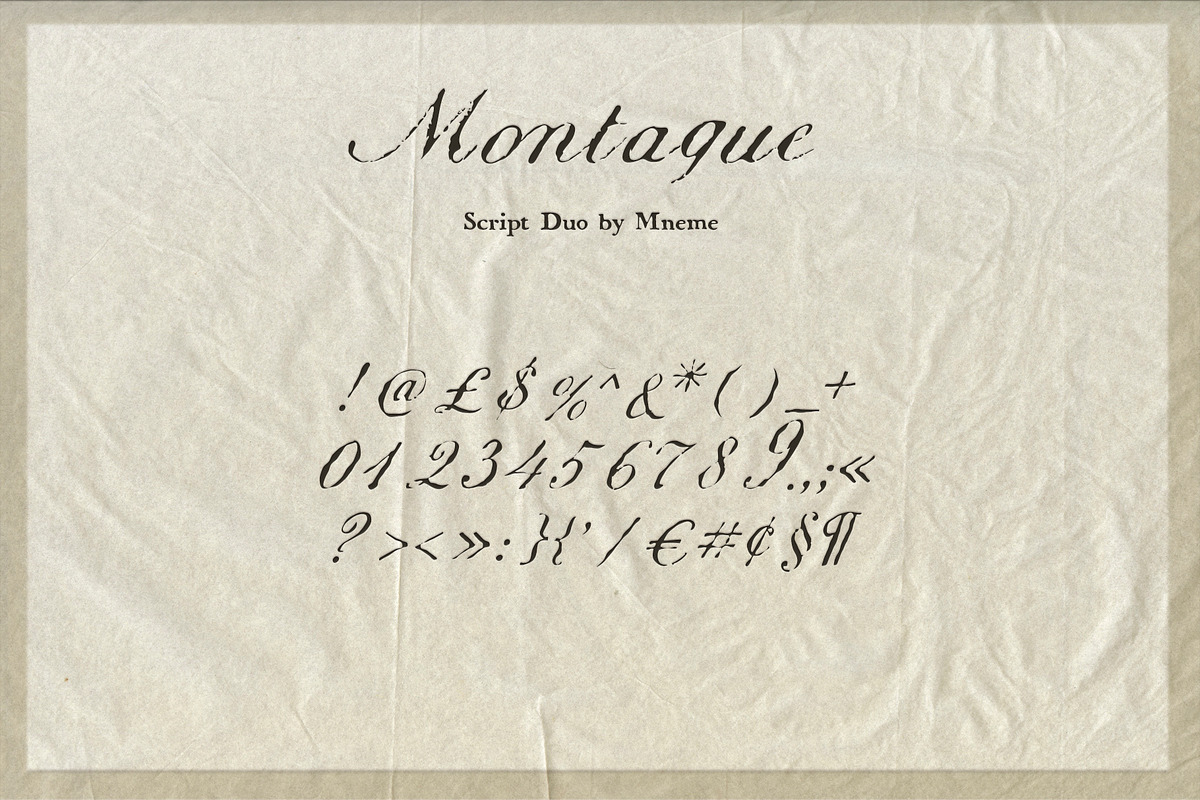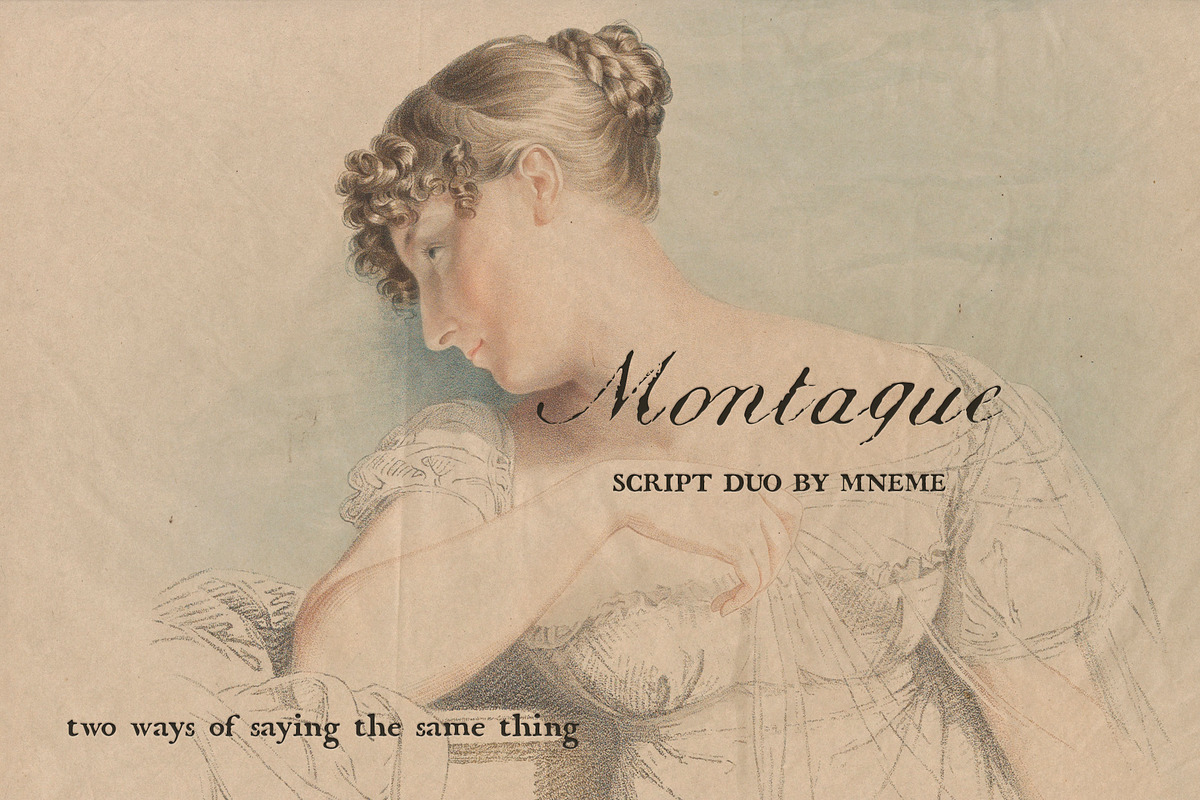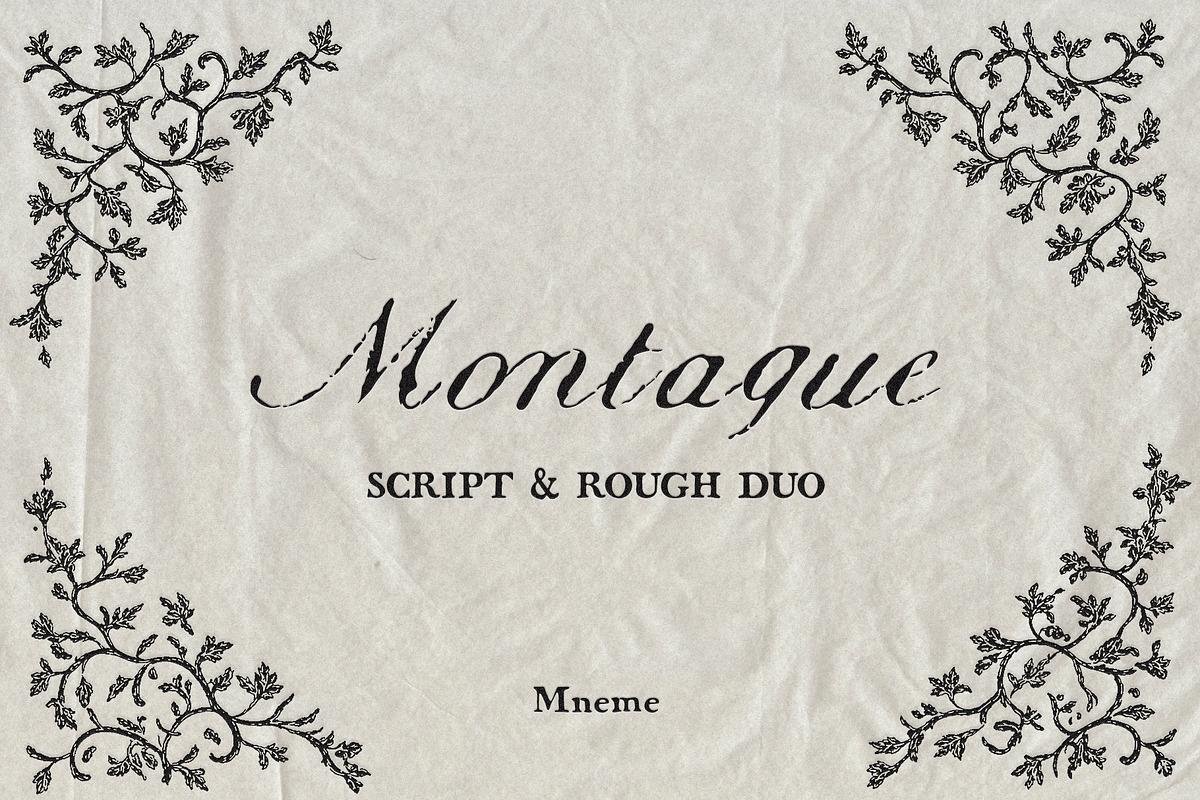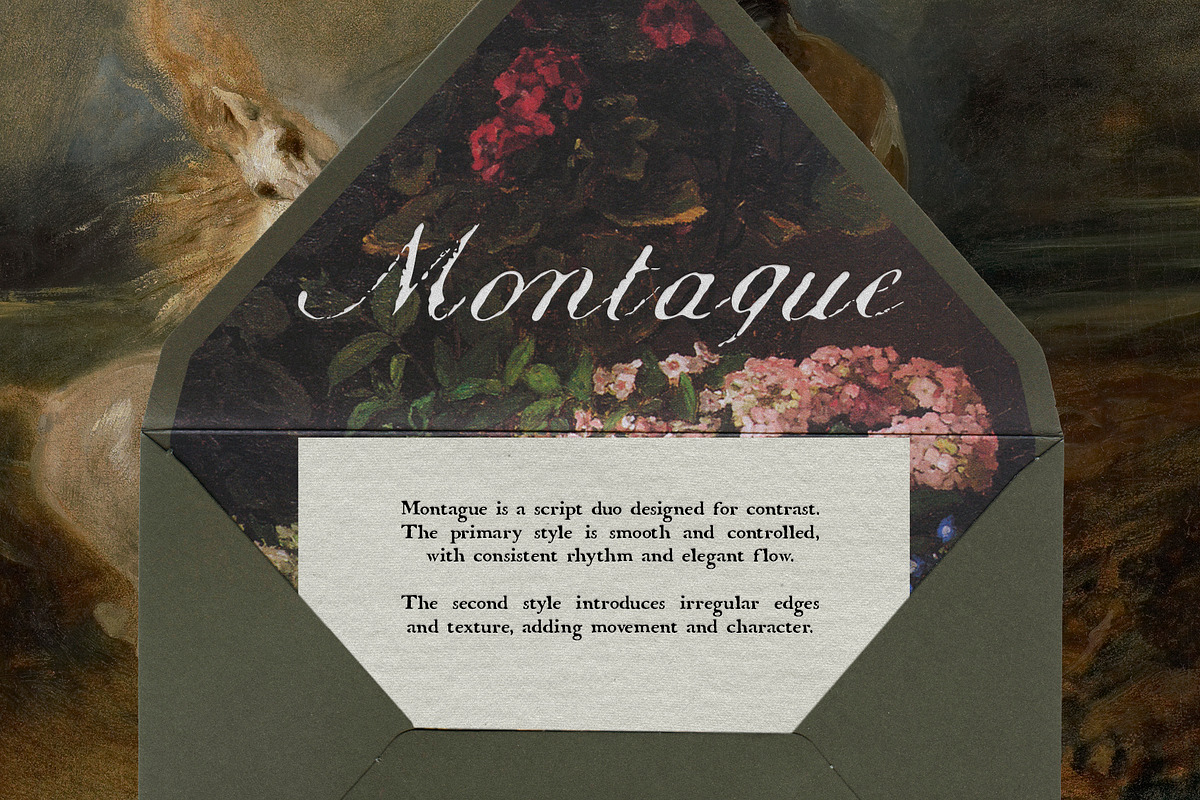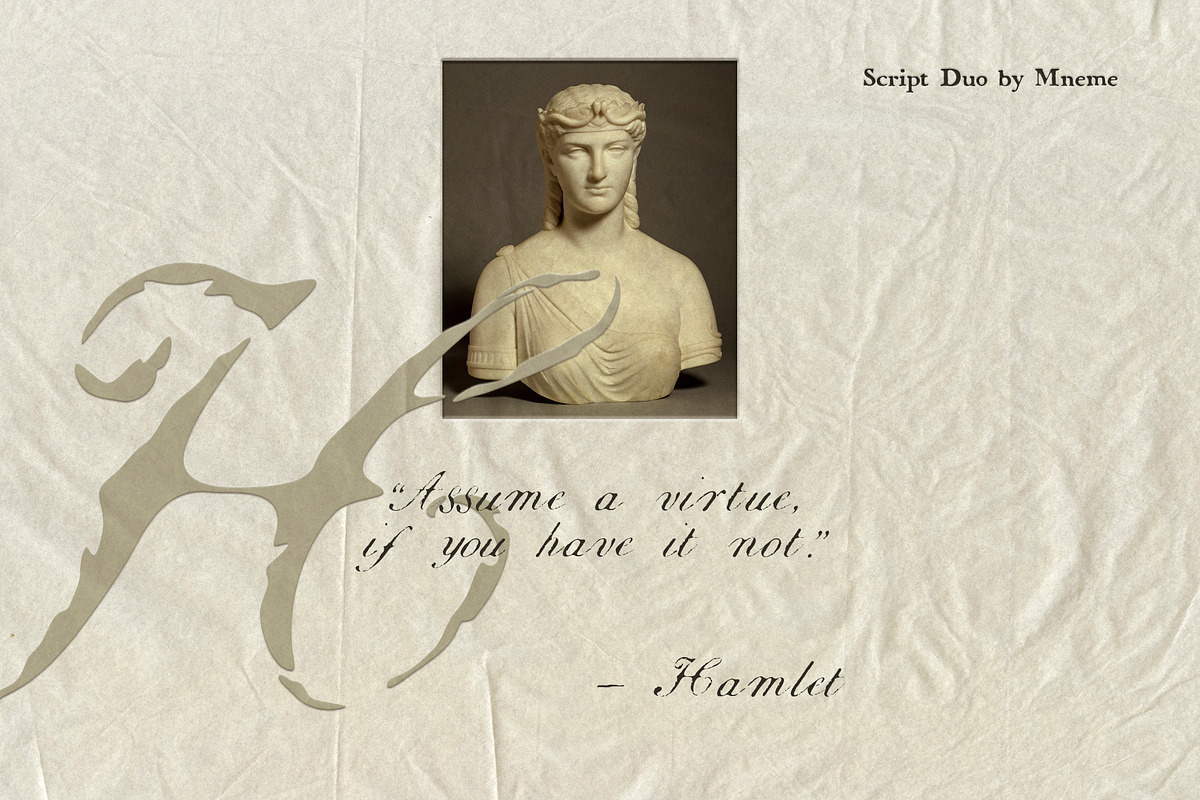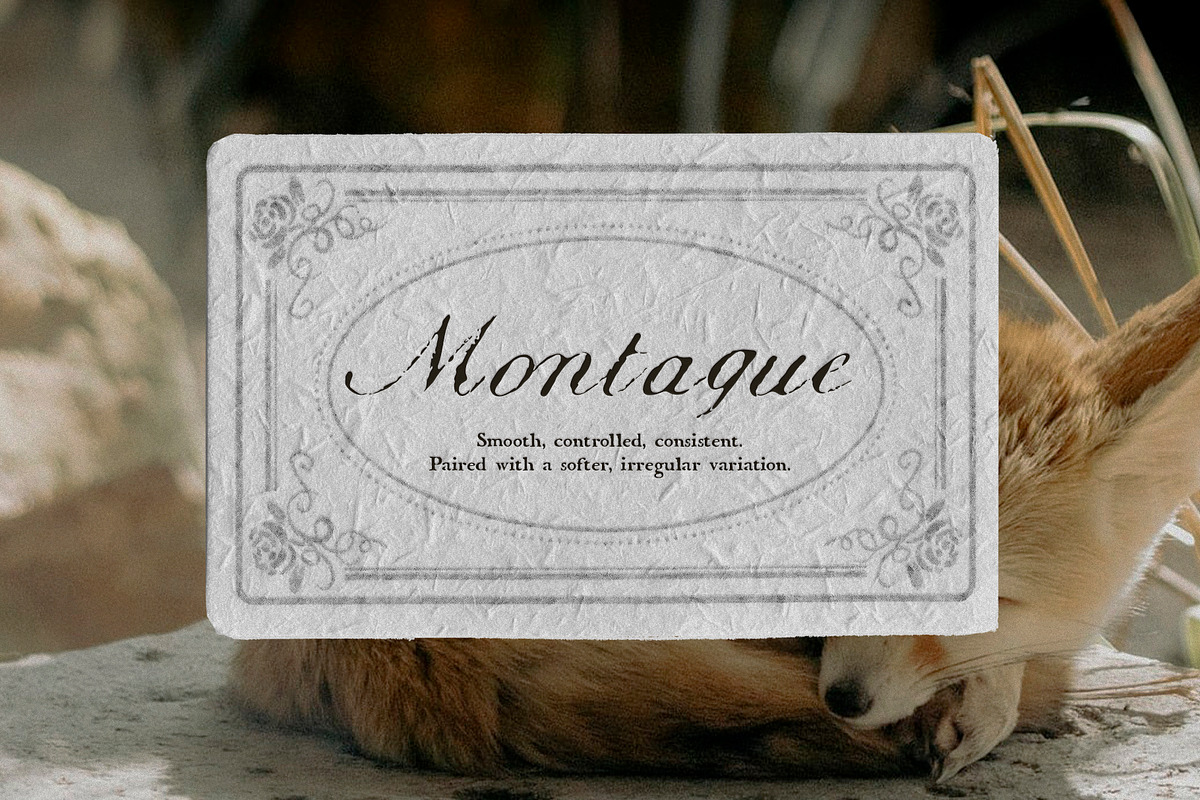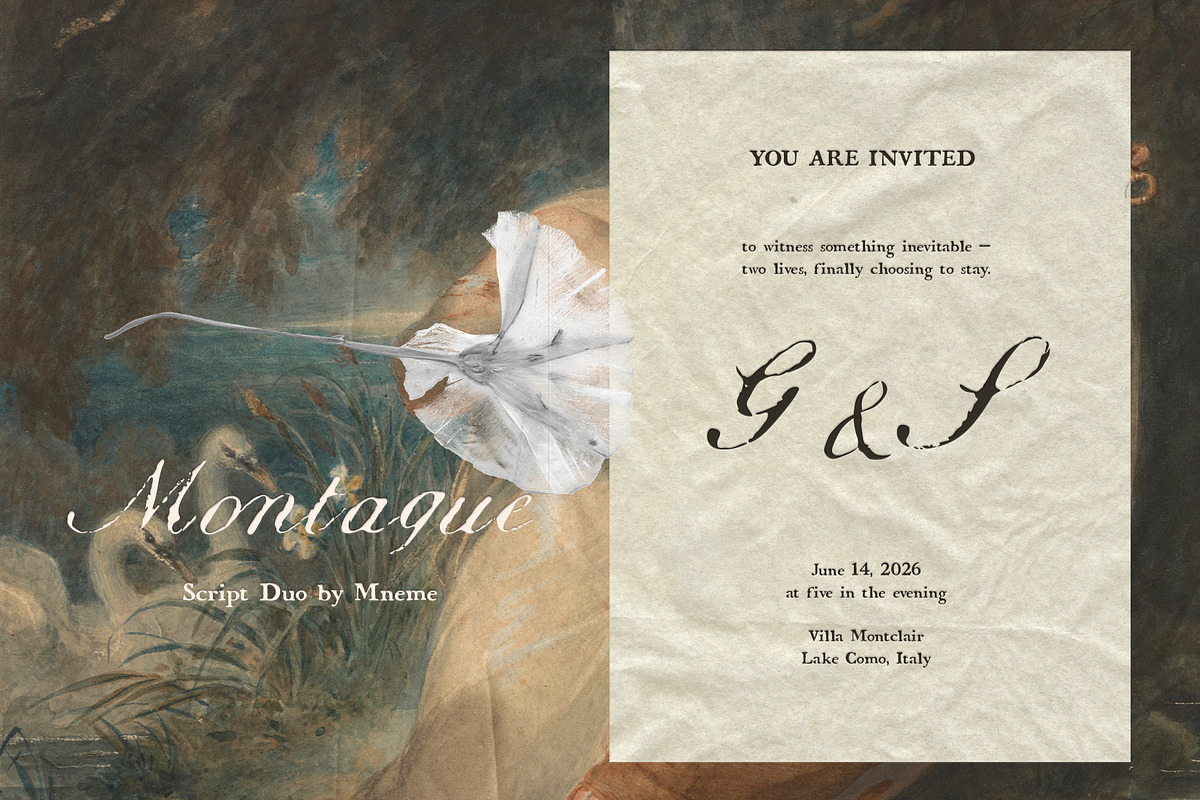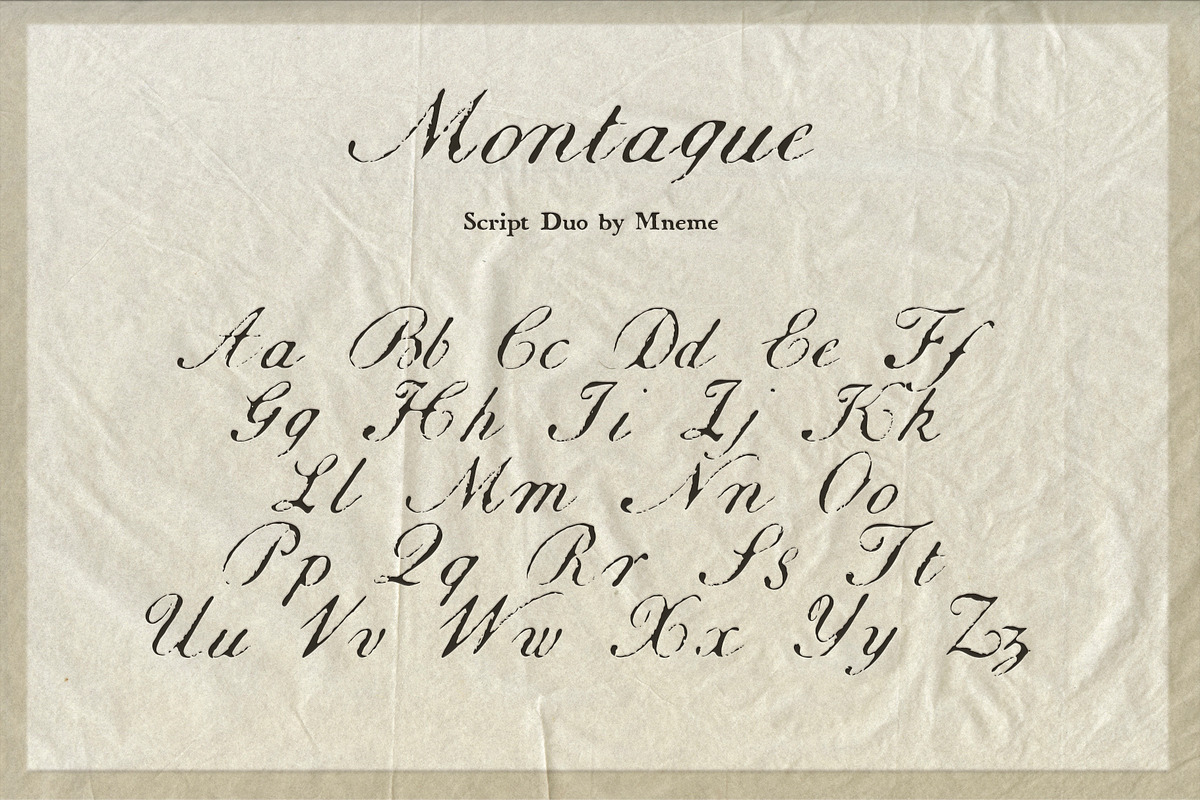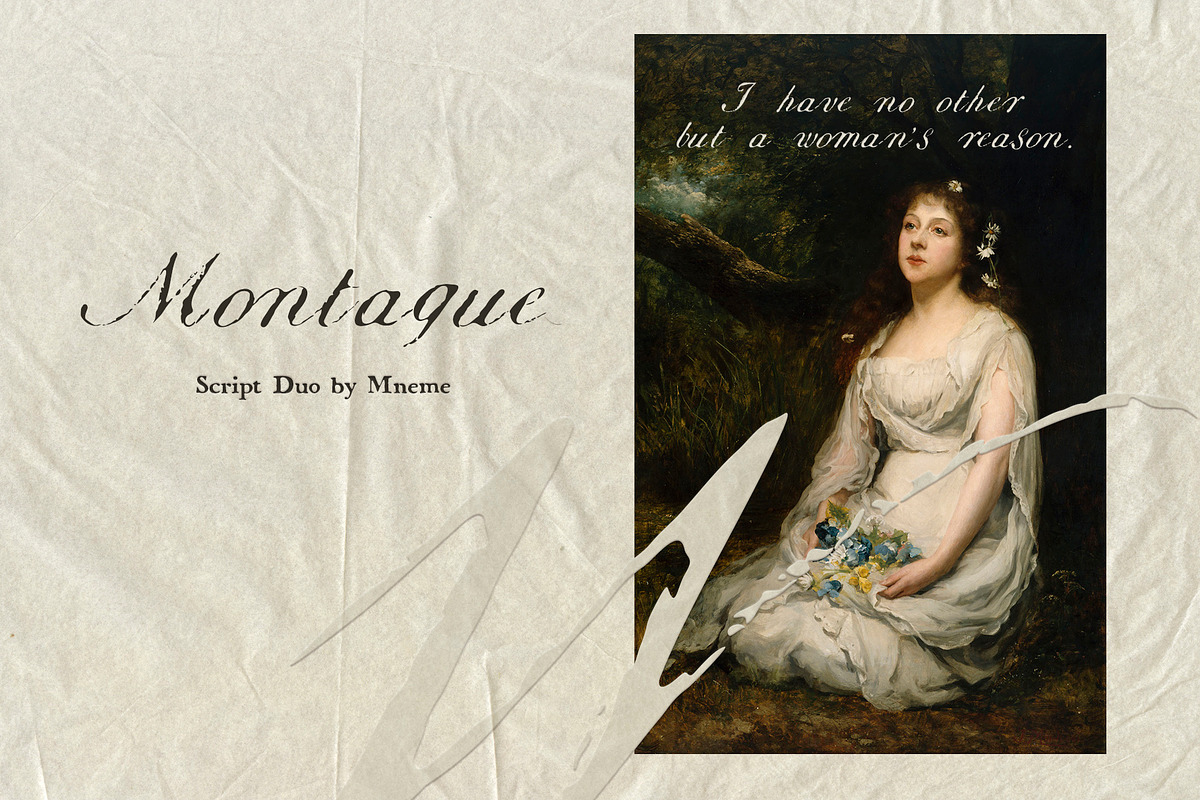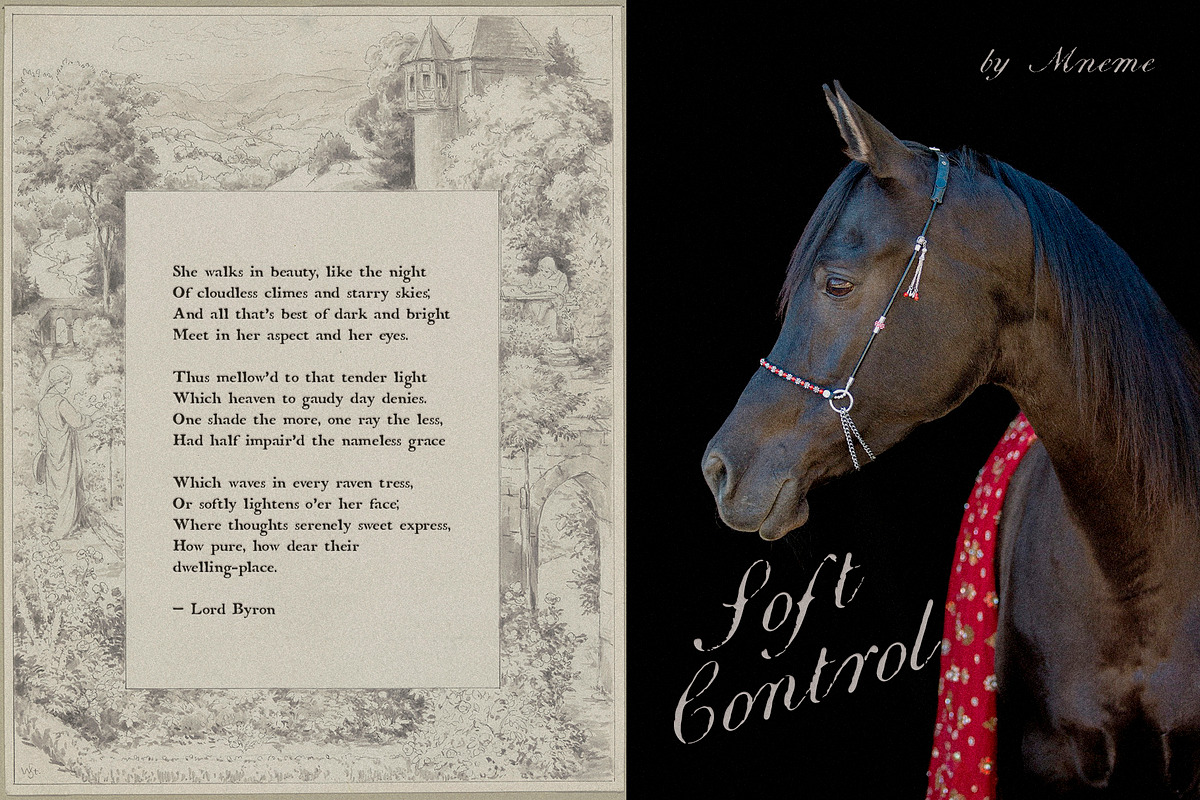
Montague - Script & Rough Duo
Montague is a script duo built on contrast.
The primary style is smooth, balanced, and controlled - designed for elegant typography, clean compositions, and refined layouts. The second style introduces subtle irregularity, with textured edges and a more natural rhythm.
Together, they create a flexible system that moves between precision and expression.
branding
packaging
editorial design
wedding invitations
logos,
layered typography.